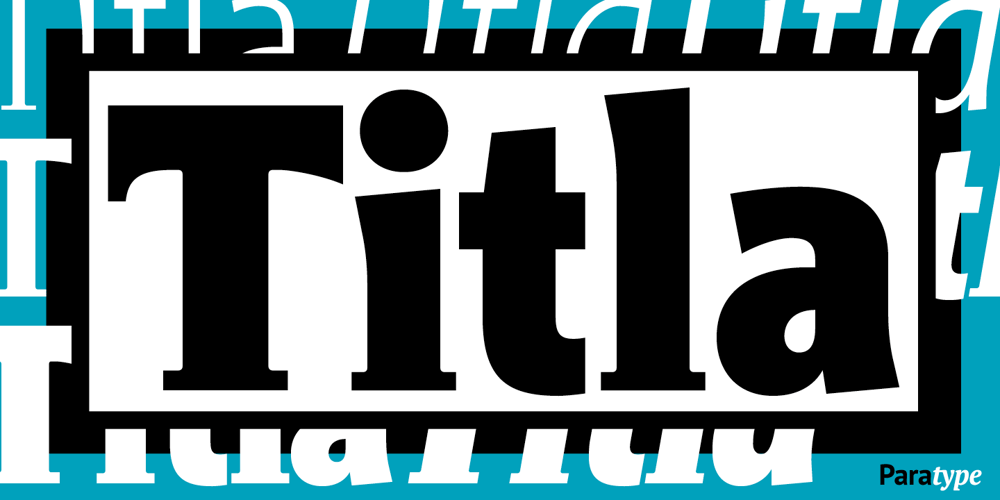
Titla
Titla font
Titla Font Family was designed by Oleg Karpinsky and published by ParaType. Titla contains 15 styles and family package options. The name of the font Titla emphasizes it heading and display functionality. At the same time low contrast, narrow proportions, wide variety of weights and clear glyph constructions make it possible to use it for long texts as well. Combination of modern serifs with flexing stems (see n, p,…) brings to the font fresh, informal and noticeable appearance. The character set includes alternative variations and specific ‘vertical ligatures’ for paired letters that are built with the help of diacritical forms of letters placed above basic ones. This feature also was reflected in the name of the font as Greek ‘titlos’ means diacritical mark. The font was designed by Oleg Karpinsky and released by ParaType in 2009.